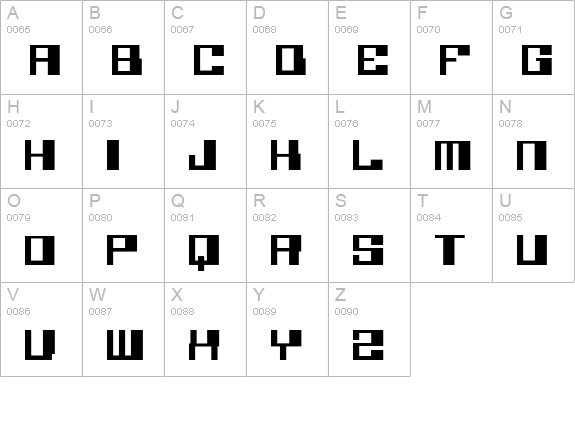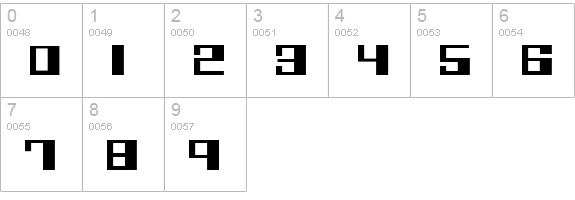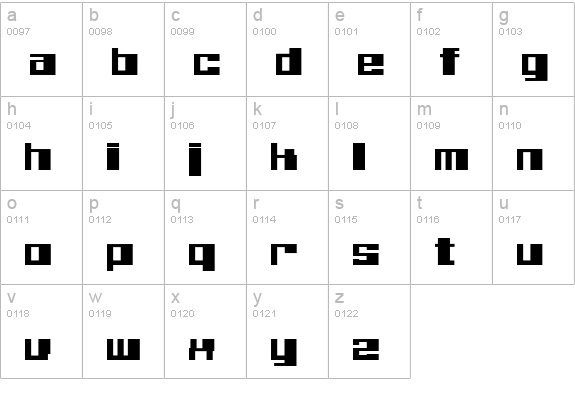
Believer Eng Font Details
Believer Eng font is a modern and stylish typeface that exudes elegance and sophistication. Its sleek lines and unique design make it perfect for a wide range of design projects, from branding to editorial layouts. This versatile font is sure to make your text stand out and leave a lasting impression on your audience. What's even better is that Believer Eng font is available for free download at FontsMarket.com! You can easily access this beautiful font and use it in your creative projects without any cost. Don't miss out on this amazing opportunity to enhance your designs with Believer Eng font today.